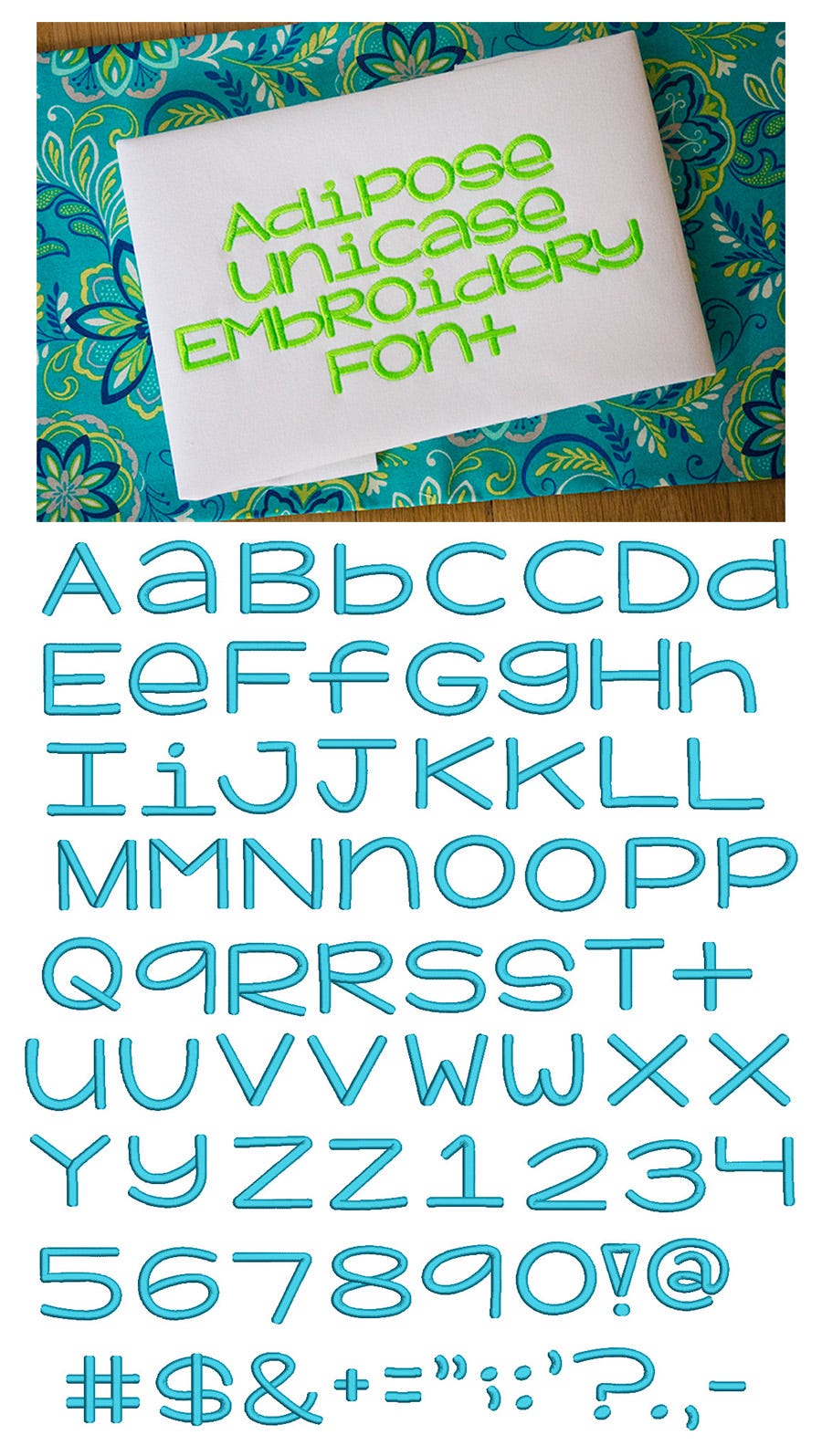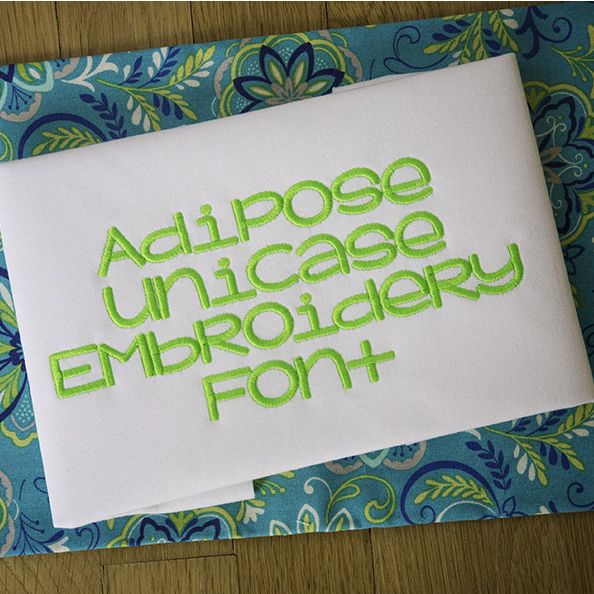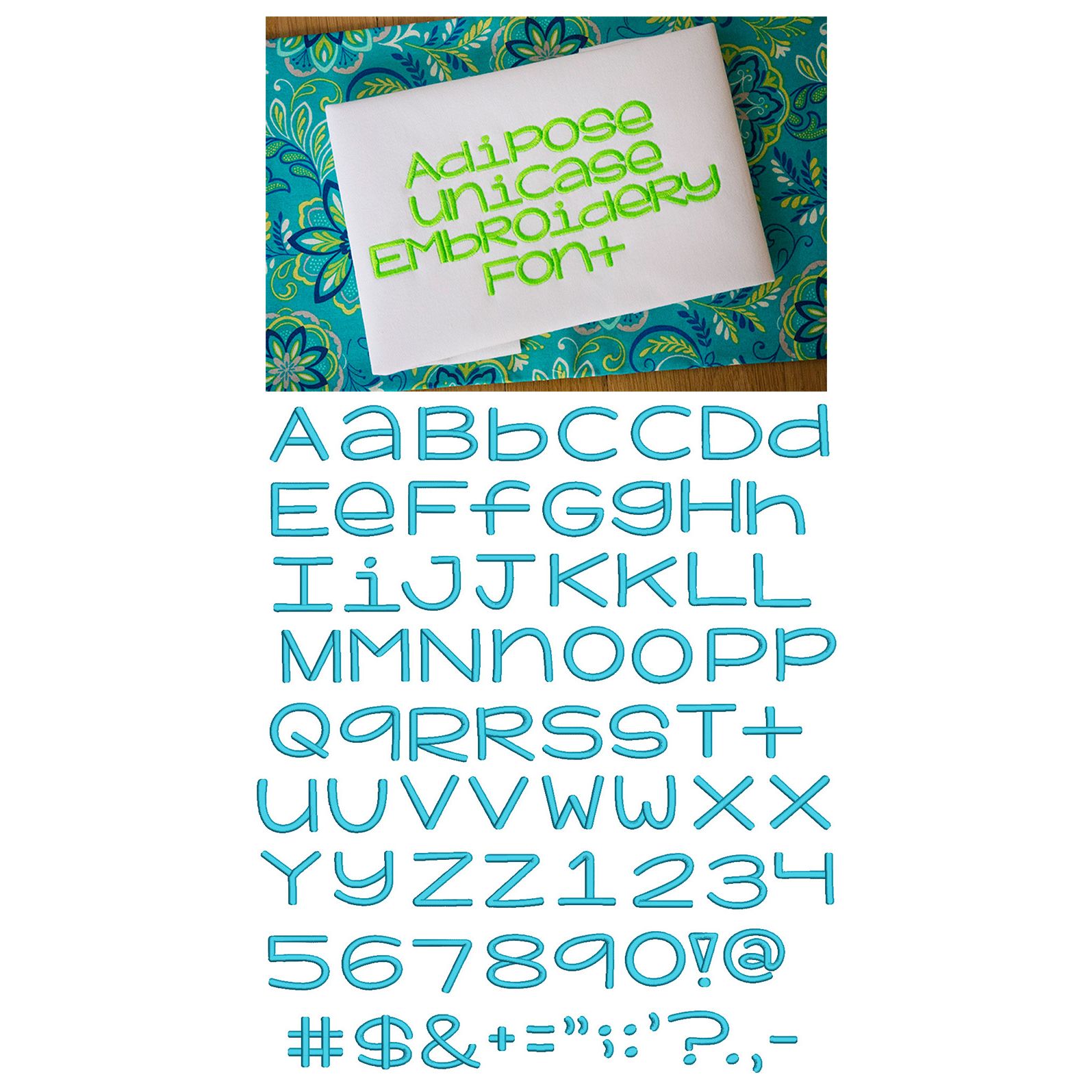
Adipose Unicase Satin Stitch Embroidery Font
A very cute and chunky, simple font. You can use each letter interchangeably as a cap or lowercase to achieve any look you desire. All of our font alphabets are 100% manually digitized to bring you maximum stitch quality.